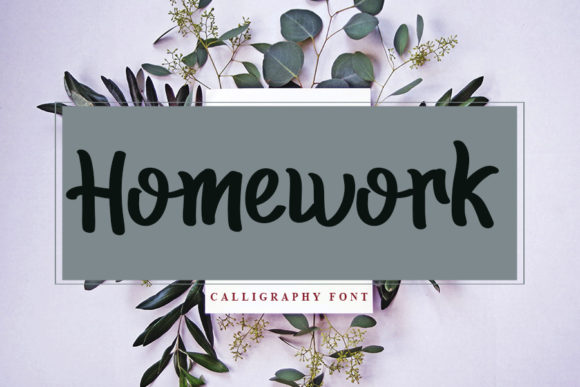
Homework: A Friendly Handwritten Font with a Touch of Elegance
Introducing Homework, a font thoughtfully crafted with a blend of friendliness and elegance. This font serves as the perfect choice for creating original and outstanding designs. With its gorgeous and unique handwritten style, Homework breathes life into any DIY project, making it stand out with a touch of charm and sophistication!
The allure of Homework lies in its friendly and approachable appeal. Each letter is carefully crafted, exuding warmth and a welcoming vibe.
Designing with Homework is an inspiring journey. Its handwritten elegance adds a touch of authenticity to your creations, making them truly one-of-a-kind.
Homework shines brilliantly in various projects. Whether you’re designing personalized cards, custom labels, eye-catching posters, or any other DIY endeavor, Homework infuses a sense of uniqueness and beauty into every design.
Unleash your creativity with Homework. Its friendly yet elegant style allows you to bring your imagination to life, crafting designs that resonate with heartwarming charm.
Embrace the magic of Homework’s unique handwritten touch. It adds a sense of creativity and flair to your projects, creating designs that leave a lasting impression.
In conclusion, Homework is more than just a font; it’s a creative companion that adds a touch of elegance to your DIY projects. With its friendly and unique style, Homework opens the door to limitless creative possibilities. Embrace its charm and let it elevate your designs to new levels of originality and beauty. For designs that truly stand out with warmth and sophistication, Homework is the font that brings your creative visions to life. Let Homework be the source of inspiration that guides you towards crafting outstanding and exceptional designs, turning every DIY project into a masterpiece!